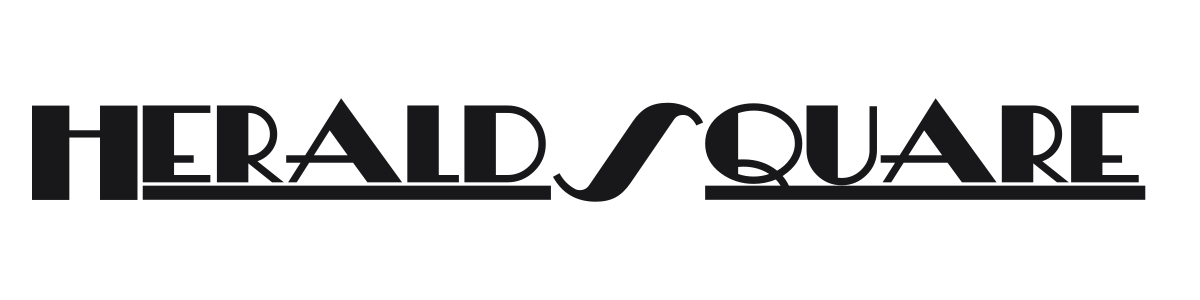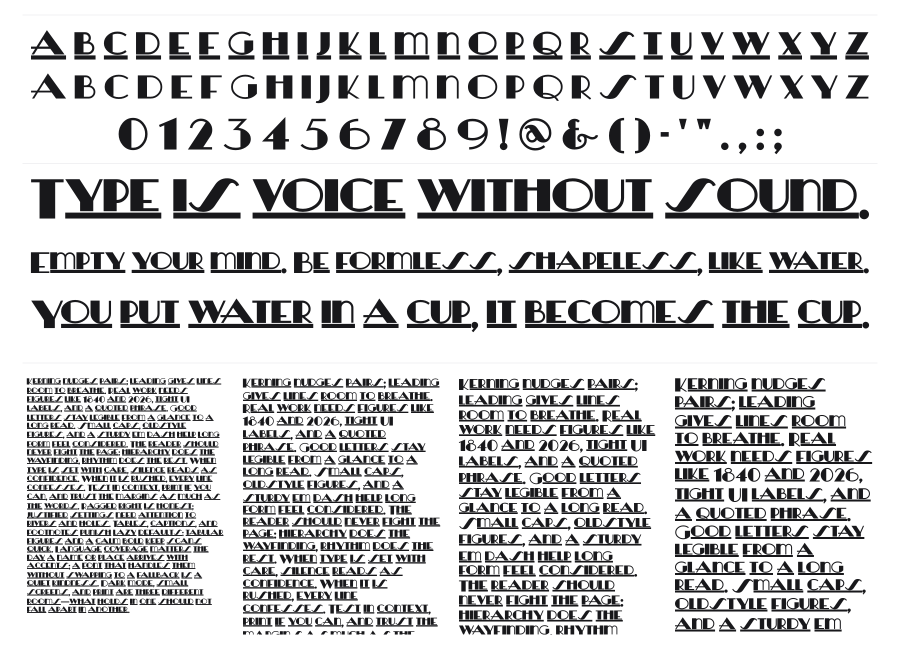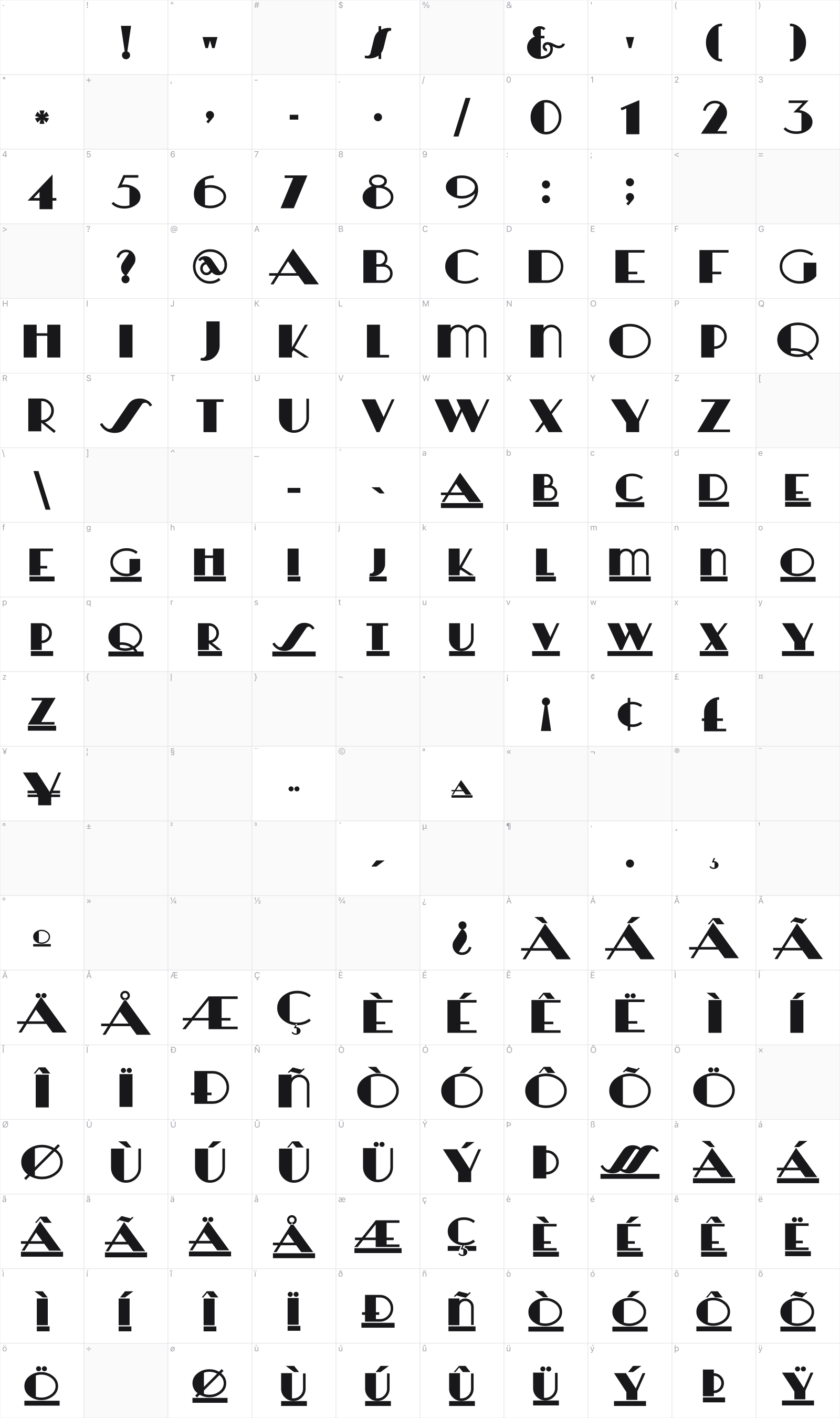
HeraldSquare
HeraldSquare is a bold, geometric display face from Nick's Fonts that draws directly from the sharp glamour of Art Deco lettering. The uppercase letterforms are heavy and decorative, with the kind of angular symmetry and stylized geometry you'd find on 1920s and '30s theater marquees and hotel signage. Built for headlines, posters, and vintage branding where you want that unmistakable Deco presence.